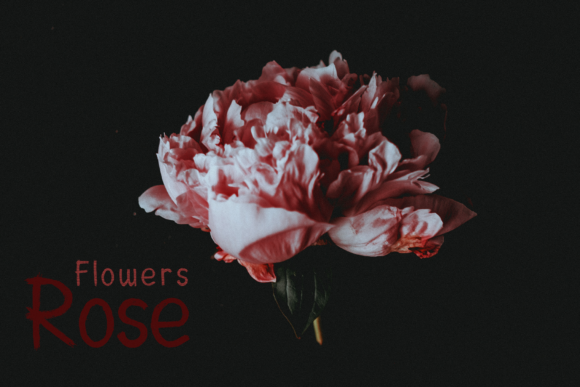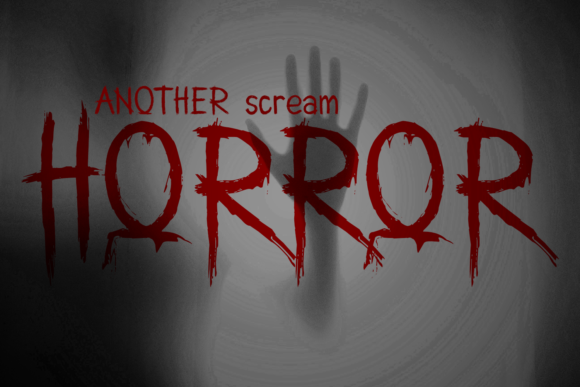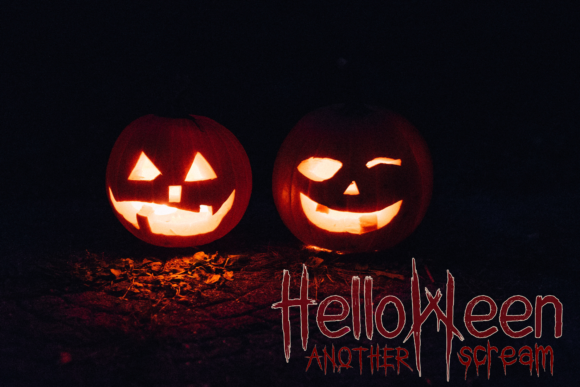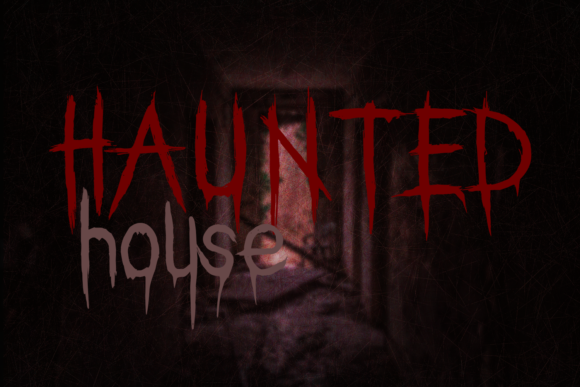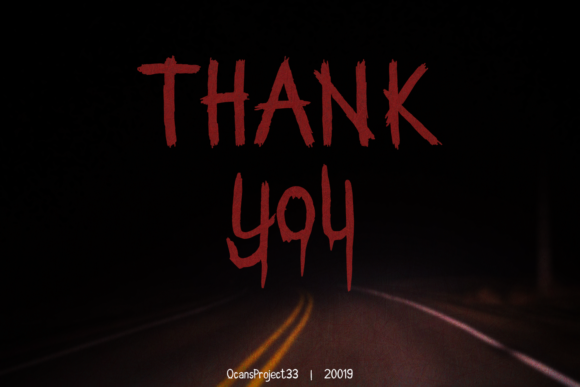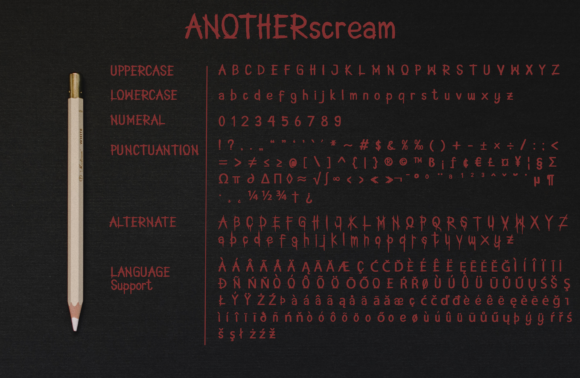
Introducing Another Scream Font: The Ultimate Typography for Creative Expression
Are you tired of using the same old fonts for your designs? Look no further! Another Scream Font is here to revolutionize the way you express yourself creatively. This amazing typography is made by scribbling using a pen, giving it a unique and authentic feel that’s perfect for a wide range of applications.
The Story Behind Another Scream Font
Another Scream Font is a hand-scribbled typography that’s designed to capture the raw emotion and energy of the human experience. The font is created by putting pen to paper and letting the imagination run wild. The result is a collection of letters and characters that are both bold and expressive.
What Makes Another Scream Font So Special?
So, what sets Another Scream Font apart from other typographies on the market? Here are just a few reasons why designers and crafters are falling in love with this amazing font:
- Unique and Authentic: Another Scream Font is made by hand, giving it a unique and authentic feel that’s hard to replicate with digital fonts.
- Emotional Connection: The font’s scribbled style creates an emotional connection with the viewer, making it perfect for designs that require a personal touch.
- Versatile: Another Scream Font is suitable for a wide range of applications, from movie titles and posters to logos, quotes, t-shirts, labels, and more.
- Easy to Read: Despite its hand-scribbled style, Another Scream Font is surprisingly easy to read, making it perfect for designs that require a clear message.
Uses for Another Scream Font
Another Scream Font is incredibly versatile, making it perfect for a wide range of creative projects. Here are just a few ideas to get you started:
- Movie Titles and Posters: Add a touch of drama and excitement to your movie titles and posters with Another Scream Font.
- Logos and Branding: Create a unique and memorable logo for your business or brand with Another Scream Font.
- Quotes and Inspirational Messages: Add a personal touch to your quotes and inspirational messages with Another Scream Font.
- T-Shirts and Apparel: Create eye-catching and stylish designs for t-shirts and other apparel with Another Scream Font.
- Labels and Packaging: Stand out from the crowd with unique and creative labels and packaging featuring Another Scream Font.
Tips for Using Another Scream Font
Here are a few tips for getting the most out of Another Scream Font:
- Experiment with Colors: Another Scream Font looks great in a variety of colors, so don’t be afraid to experiment and find the perfect hue for your design.
- Play with Size: Another Scream Font can be used at a variety of sizes, from large and bold to small and subtle.
- Combine with Other Fonts: Another Scream Font pairs well with other fonts, so feel free to get creative and combine it with other typographies.
| Font Name | Another Scream Font |
| Author | OCS Studio |